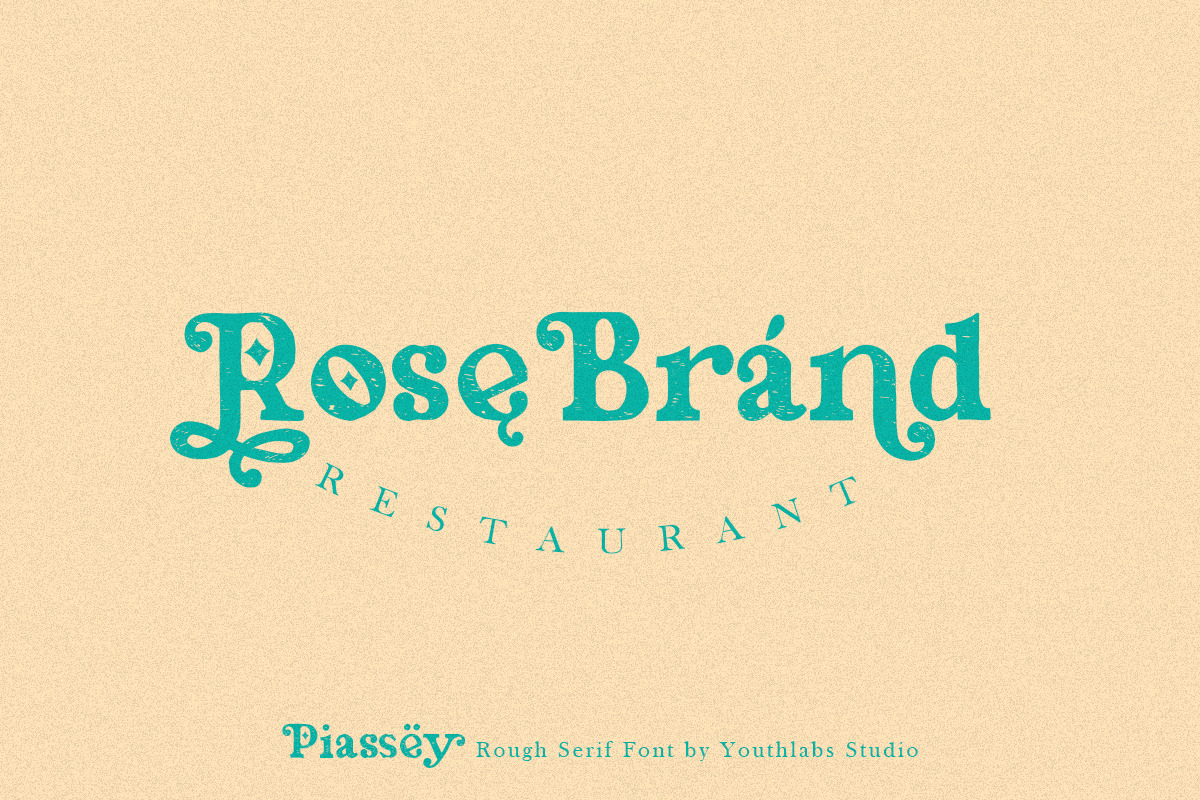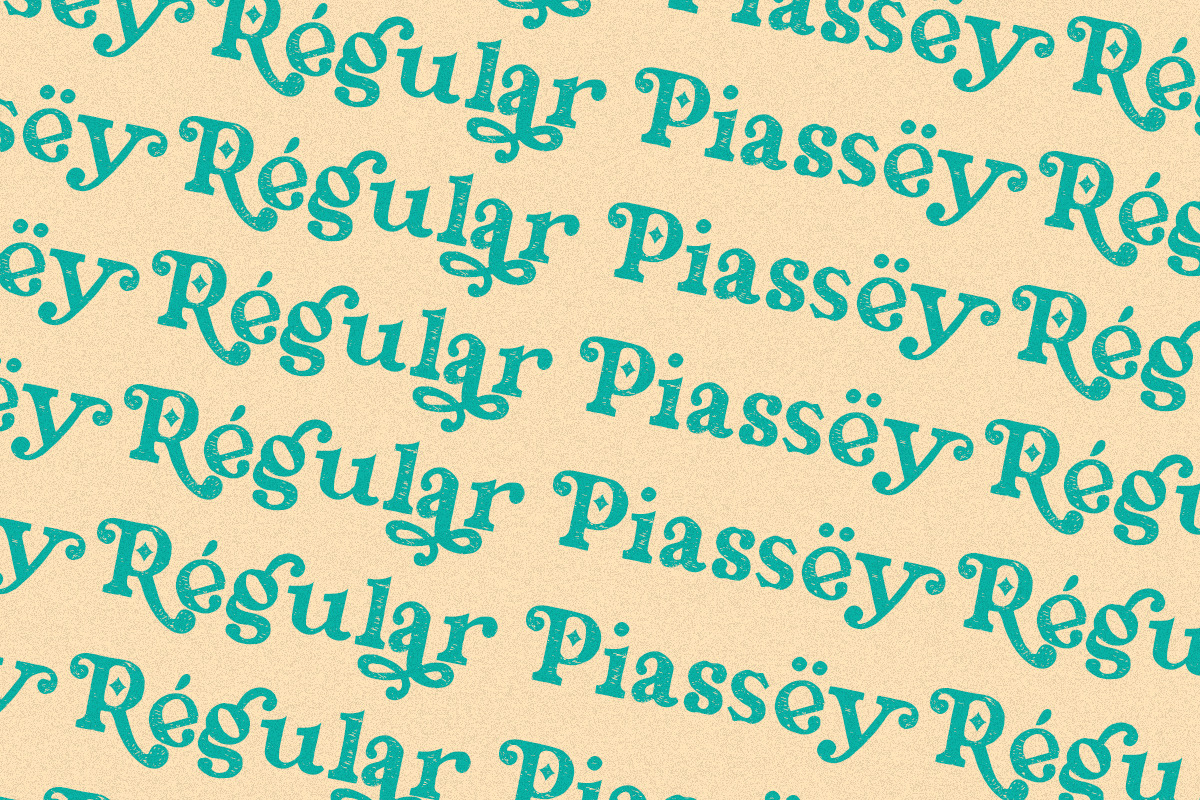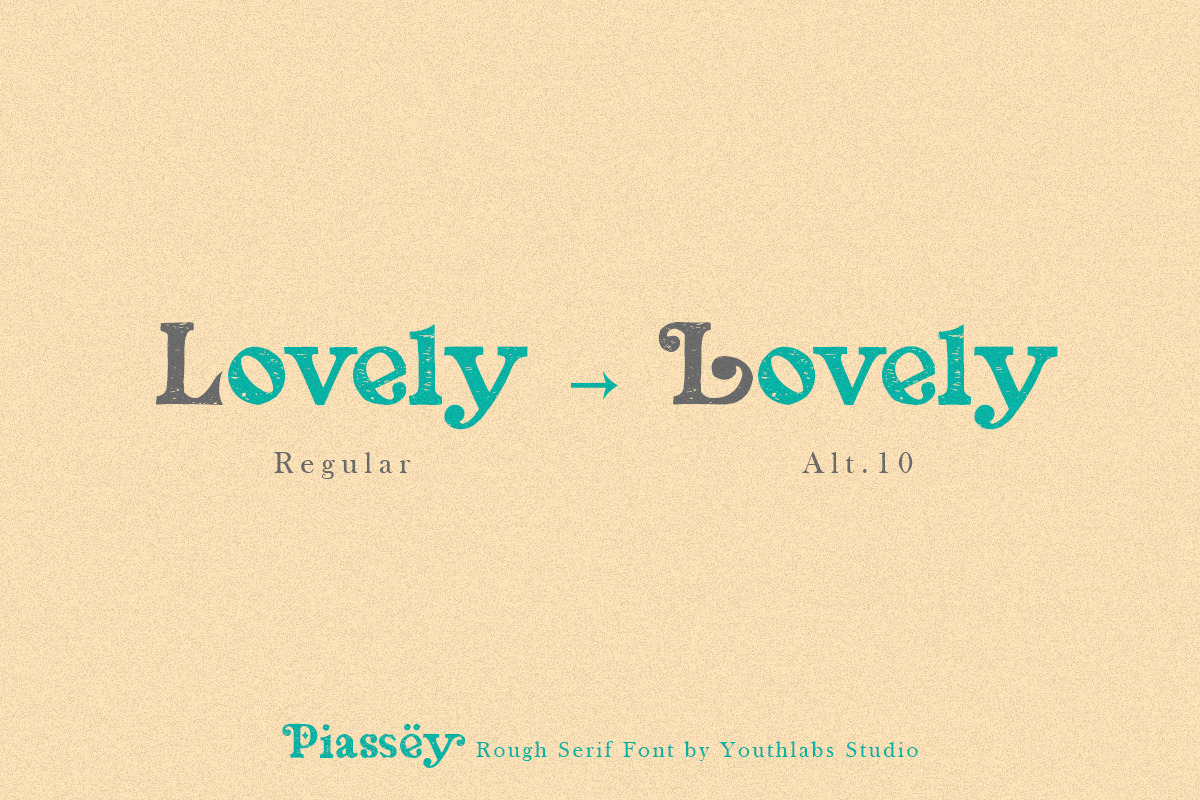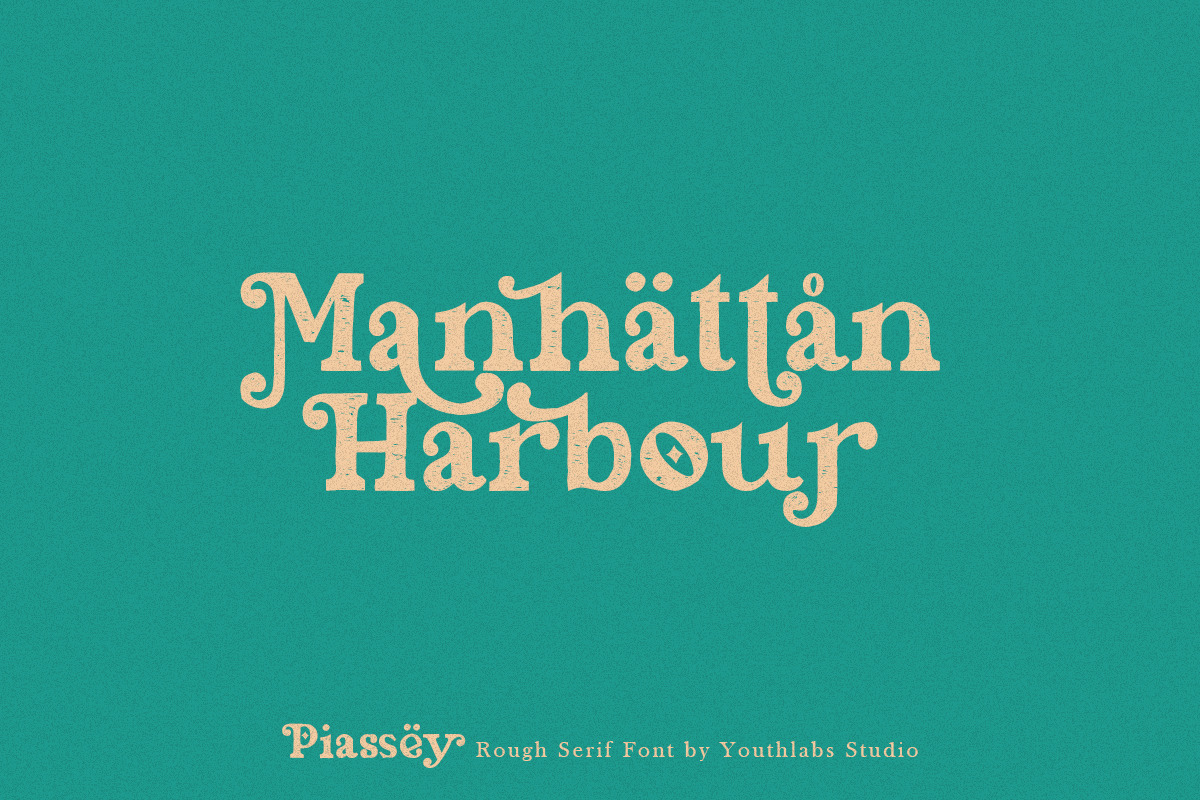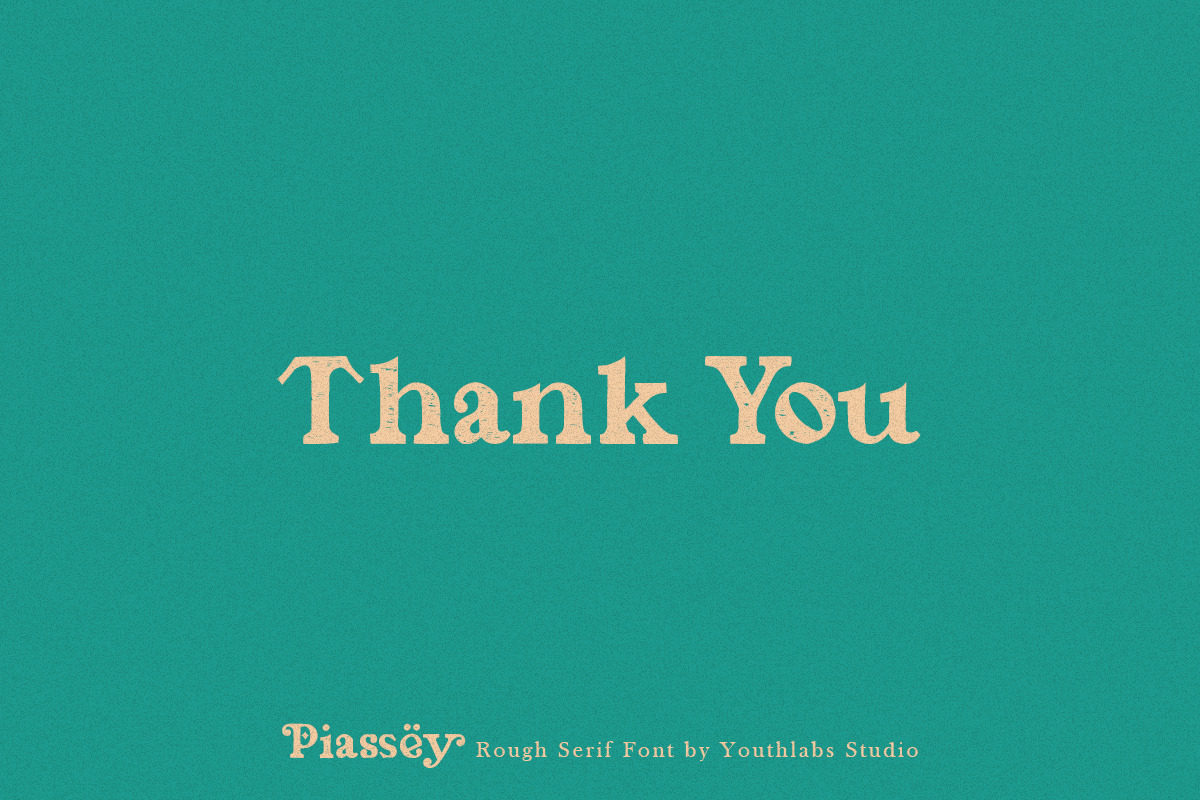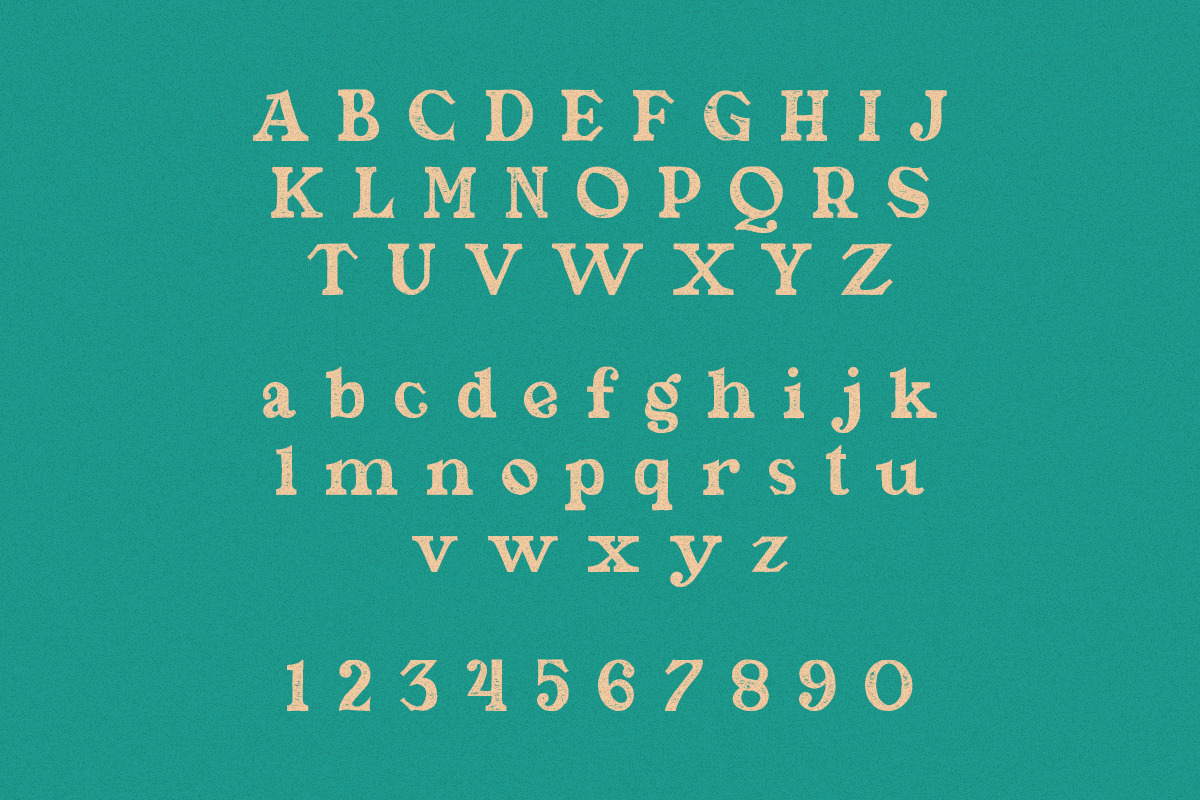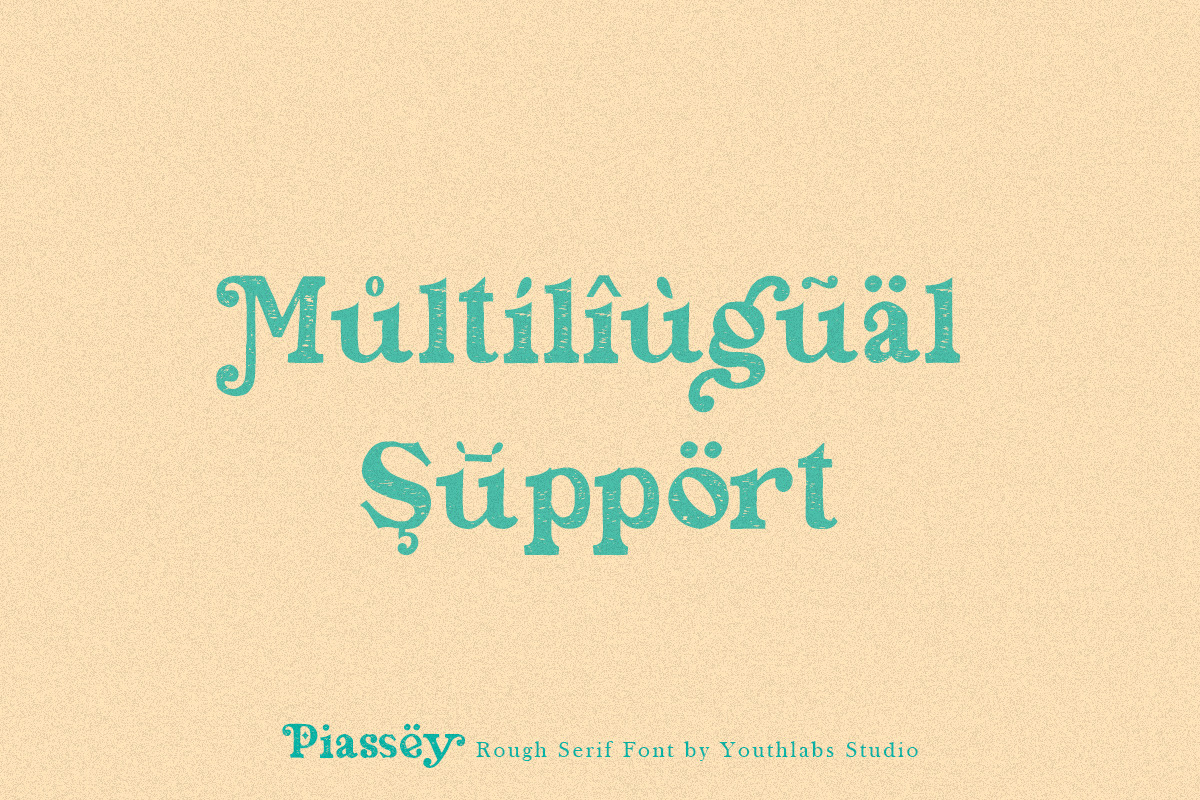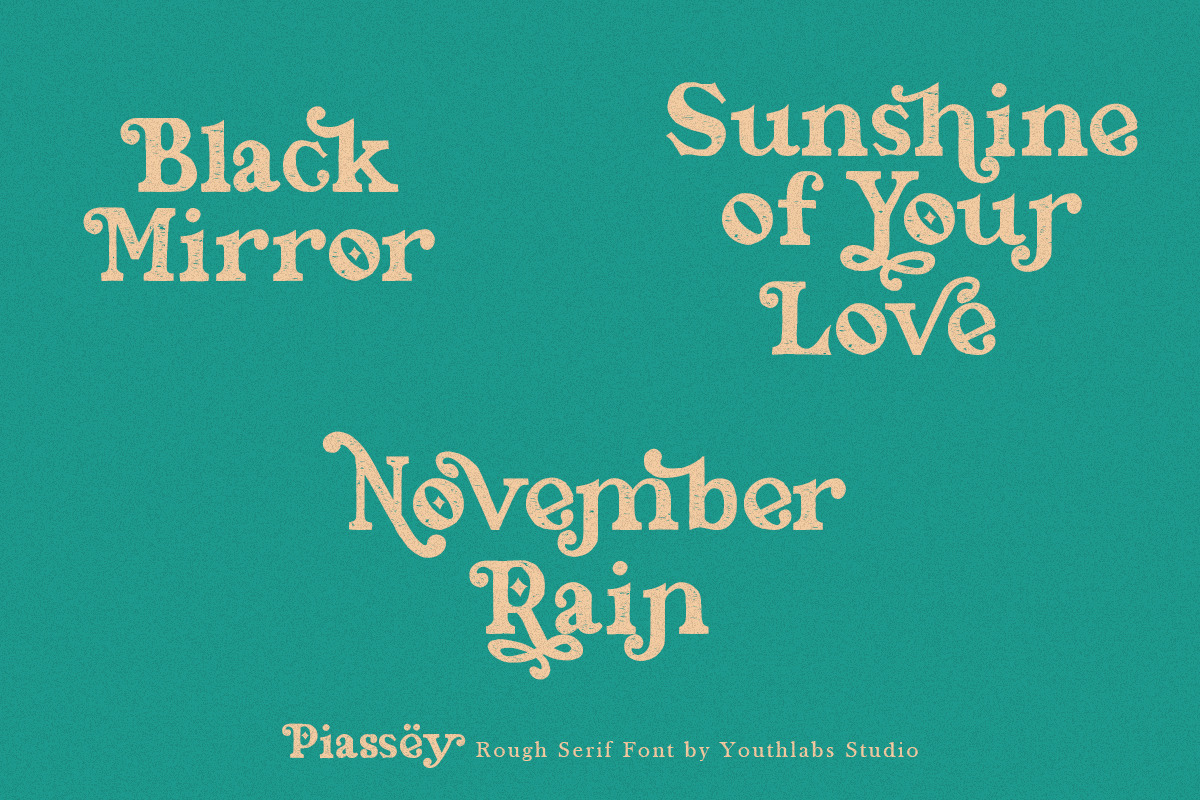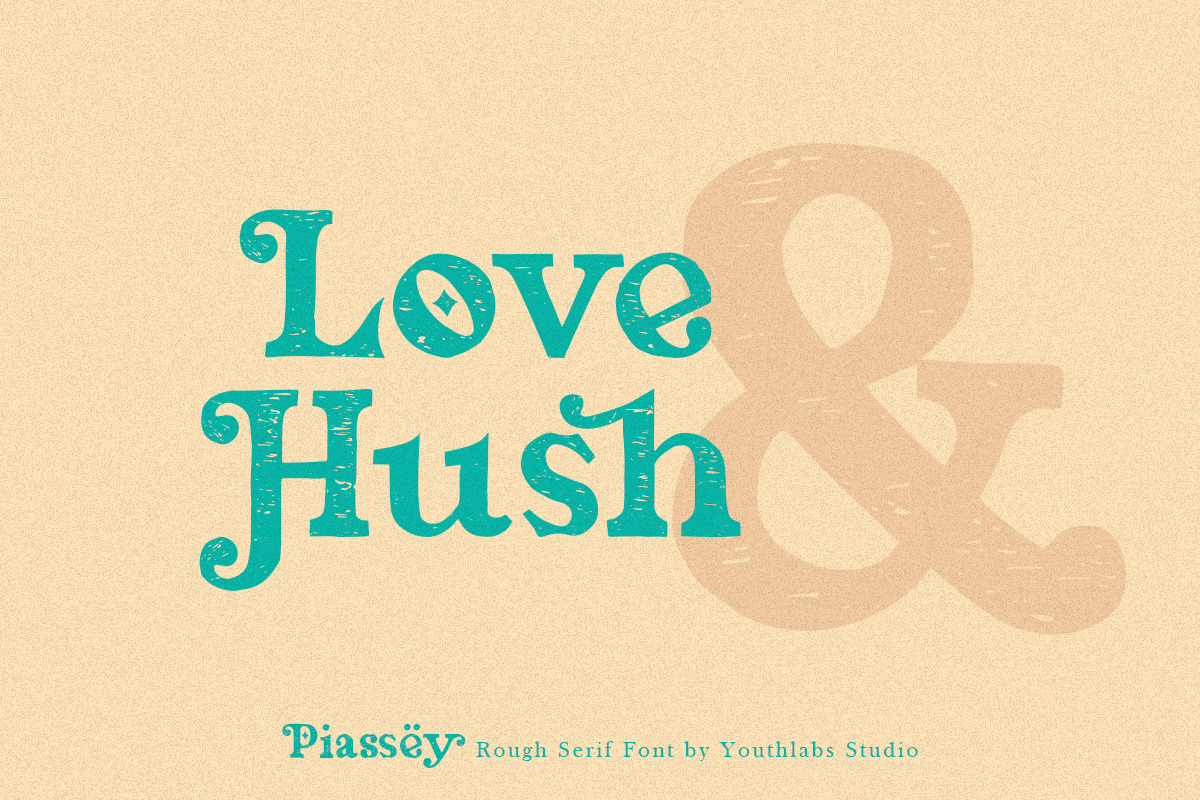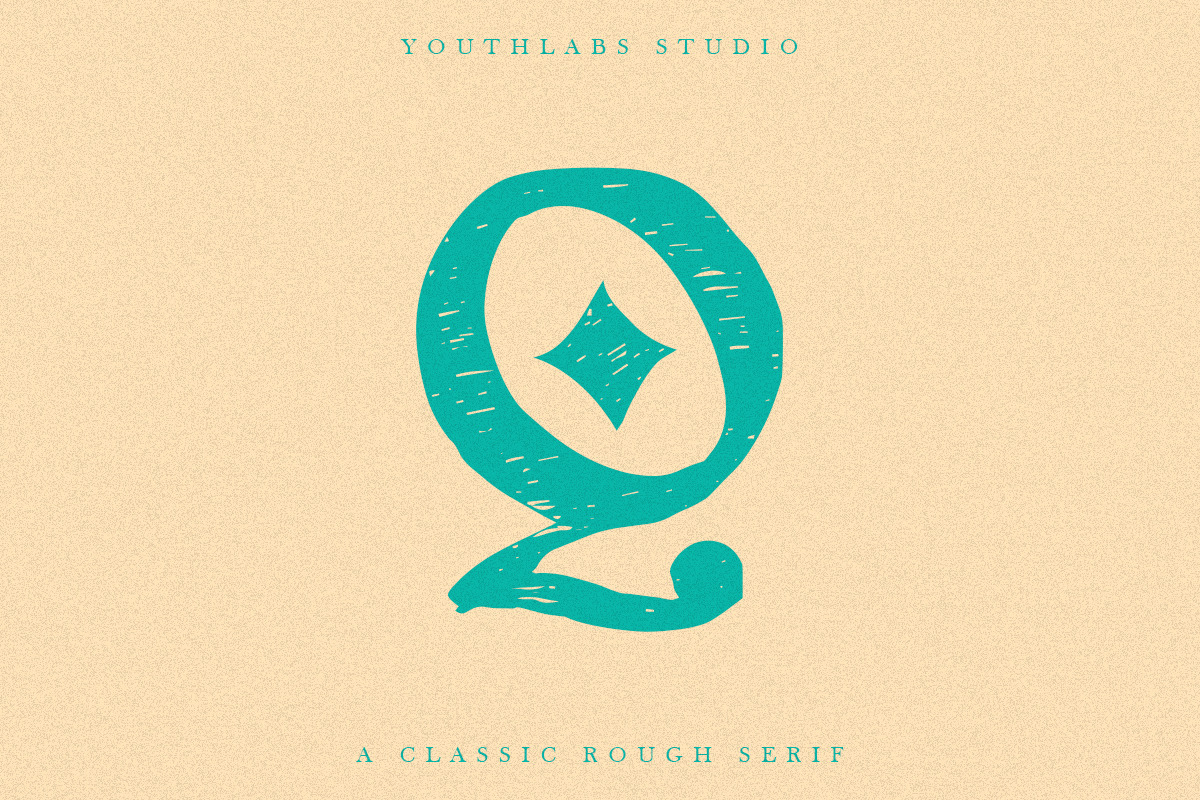
Piassey - Rough Serif Font
Introducing Piassey Rough Serif Font - A New Serif Font with Rough Texture, Piassey Rough Serif come from scratch and vectorize with raw texture. Piassey Rough Serif Font made for fulfill design needs that require a natural texture. PIassey Rough Serif have More Alternative Character, and Multilingual Support
Piassey Rough Serif is a very versatile font. you can use this font to make perfect various design like Product Design, Tshirt Design, Card Design, Merchandise Design and many more. you can also improve more than 600 Glyphs in Piassey Rough Serif Font. Completely with Slant Mode made your design look cool
Piassey Rough Serif Font support 24 Language : Afrikaans Albanian Catalan Croatian Czech Danish Dutch English Estonian Finnish French Hungarian Italian Lithuanian Maltese Norwegian Polish Portugese Slovak Slovenian Spanisch Swedish Turkish Zulu
- More Than 600 Glyphs
- 24 Language Support
I'm glad I purchased this font. It's beautiful, and I love all the little details - the texture, the tiny diamond shapes, the variety of versions etc. I'm really picky and looked for months to find the perfect font for me. My only (small!) issue, is that there are sometimes weird spacing issues between letters. I think the cool kids call it kerning? - Like if an 'i' is followed by a 'p' in the same word, they're MUCH farther apart compared to everything else. - OR e/o followed by j/x are very close together. I tend to just find a different word, instead of having one that looks strange. If this was resolved, it would be a 5/5.